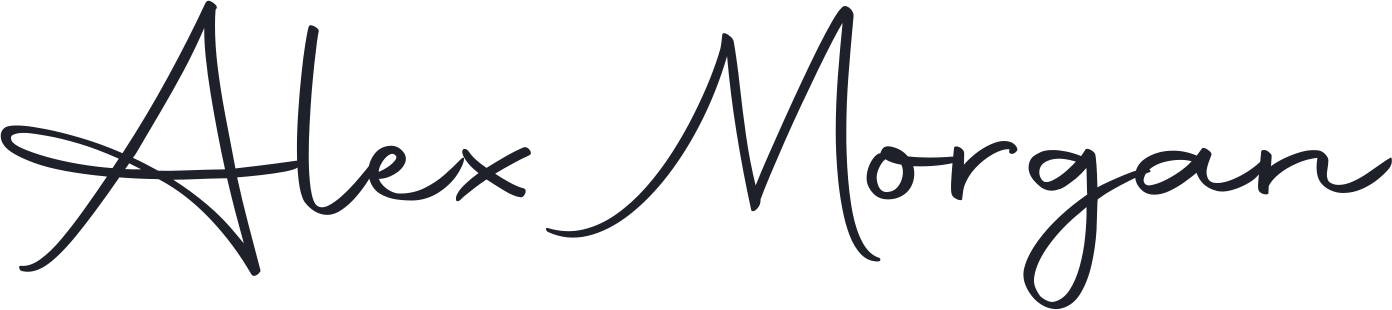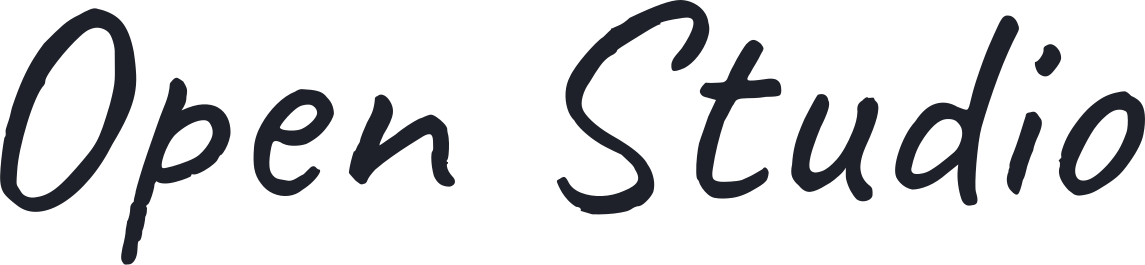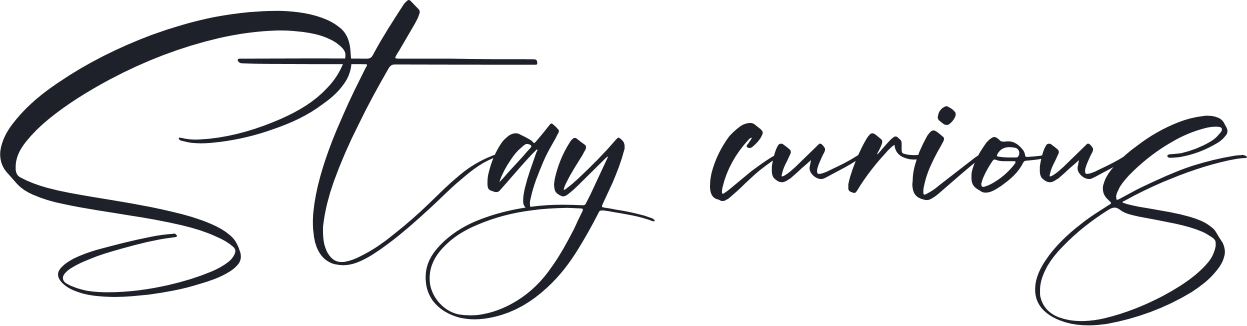
Fancy text vs. font images: which should you use?
Compare copy-and-paste fancy text with PNG and SVG lettering, explore decorative symbols, and choose the right format for bios, messages, print, and email.
Use fancy text when you need decorative characters that can be copied into a text field. Use a font image when you need a particular lettering design, color, or layout as a PNG or SVG. If you control the formatting in a document or website, ordinary text with an actual font is often the more useful third option.
These choices can look similar on a screen but behave differently after you copy, resize, edit, or share them. A calligraphy PNG will not become editable text when pasted into a bio, and a Unicode handwriting style will not reproduce a specific calligraphy font. Choose the output type before you spend time choosing its appearance.
The difference at a glance
| Question | Fancy text | Font image |
|---|---|---|
| What do you receive? | A string of Unicode characters | A PNG or SVG file |
| What do you copy? | Characters | An image, if image pasting is supported |
| Can you edit the words directly? | Yes, as text; style coverage varies | Regenerate the lettering to change the words |
| Who determines the appearance? | The characters and the receiving app’s fonts | The generated artwork |
| Can it have a transparent background? | No separate background is exported | Yes, when generated with transparency |
| Can you set a custom text color in the generator? | The destination controls text presentation | Yes, before generating the image |
| Where is it useful? | Short decorative text in supported text fields | Lettering artwork, invitations, and image-based signatures |
Ordinary formatted text sits outside this two-column comparison. In a document editor, choosing a font changes how normal characters are drawn. A website can do the same with typography styles. That approach keeps the words as regular text while giving the author control over their presentation.
What fancy text actually is
A copy-and-paste font generator replaces supported letters with other Unicode characters that have a decorative appearance. For example, a handwriting-style capital A is a different character from the ordinary A, even though readers may recognize them as the same letter. This is why the style can sometimes survive pasting into a field that does not offer a font menu.
The Free Fancy Font Generator provides styles such as Handwriting Bold, Gothic, Double Struck, and Circled. You can style the entire text or a selected part, add decorative symbols, and copy the result. The output remains a sequence of characters; no font file is installed in the destination.
The following examples were created in the tool from the same name. They remain text in this document so you can select and copy them. Their exact appearance can vary with the fonts available in the application you use to read them.
Handwriting Bold
This version gives the name a script-like appearance while remaining copyable. It can illustrate a decorative display name or short personal line, but it does not give you control over individual flourishes, precise spacing, or a particular commercial typeface.
Gothic
This version replaces the supported letters with Gothic-style characters. It is a different character sequence from the plain name, so it should not be treated as a guaranteed substitute for the ordinary spelling in a search field, account identifier, or other functional text.
Double Struck
Double Struck changes the visual character of the same words again. The result is useful for understanding what a text styler changes: the characters themselves, rather than a font-family setting that travels with the text.
Many familiar fancy alphabets come from Unicode’s mathematical characters. Unicode explains that using those alphabets to imitate ordinary styled text is an unintended use of characters designed for mathematical distinctions. That is an important reason to keep essential information in ordinary text. See the Unicode explanation of styled alphabets.
Test accented letters, punctuation, and numbers
A plain A–Z name hides some useful differences. We entered “Zoë O’Neil 123” in the Free Fancy Font Generator, starting again from that exact plain text before applying each style. The results below are actual tool output, kept as selectable text. The digits are a test sequence, not part of the person’s name.
Handwriting Bold: script letters with bold digits
The basic Latin letters become bold script, while the digits become upright bold characters. The ë and curly apostrophe stay unchanged. This is a useful example of why one style button does not mean every character receives the same kind of decoration.
Gothic: letter style and number style differ
The letters take Gothic forms, but the three digits use double-struck forms in this result. If your display name includes a number, inspect it alongside the letters instead of assuming that Gothic also means Gothic-looking numerals.
Which option should I use for an invitation?
Use a lettering image when you need a specific visual treatment for the names, then assemble the invitation in a design application. Keep the longer details editable where possible and check the final print or screen size.
Which option should I use for an email signature?
Use a PNG for the calligraphy name when the email editor supports images. Keep contact details as ordinary text and verify the received email. Decorative Unicode is a different approach with different display limitations.